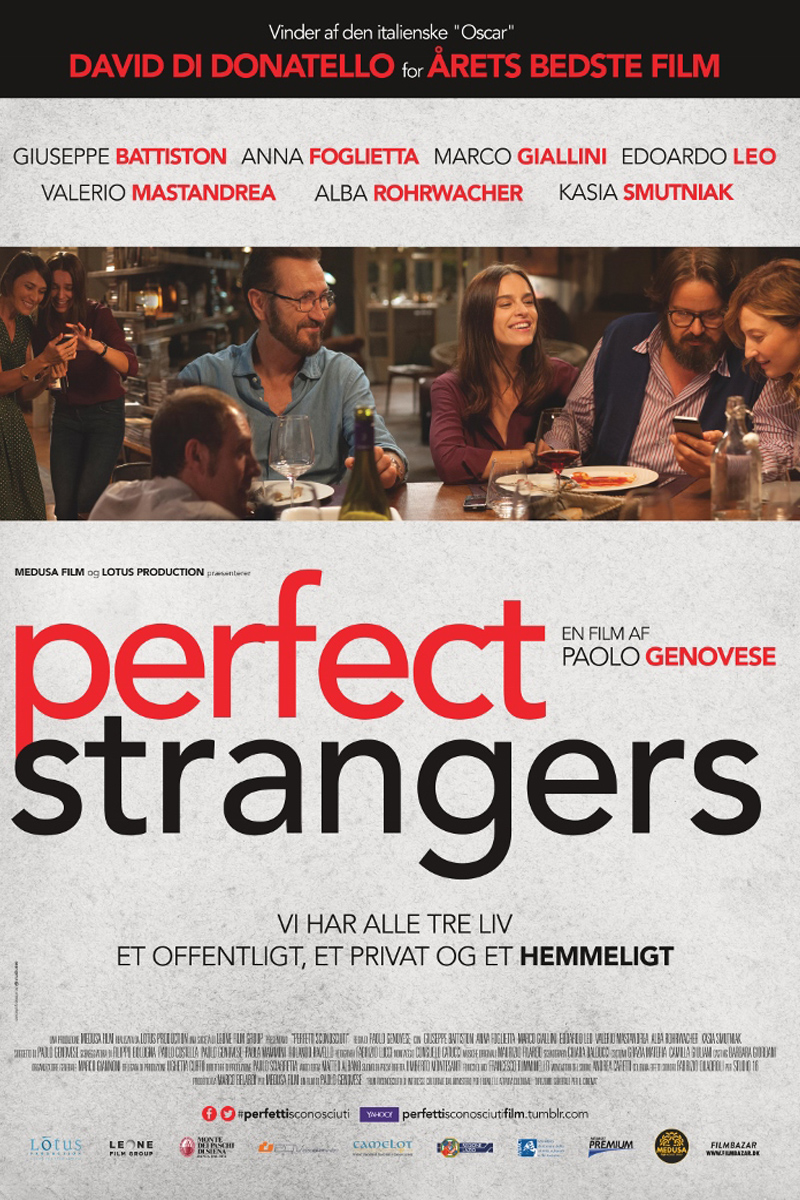
Perfect Strangers (film) Font
DramaPerfect Strangers is a 2017 Italian film about a group of friends who participate in a dinner party game that reveals their hidden secrets and tensions.
The poster of the film features the title in Avenir font. Avenir designed by Adrian Frutiger, is a geometric sans-serif typeface and was released in 1988.